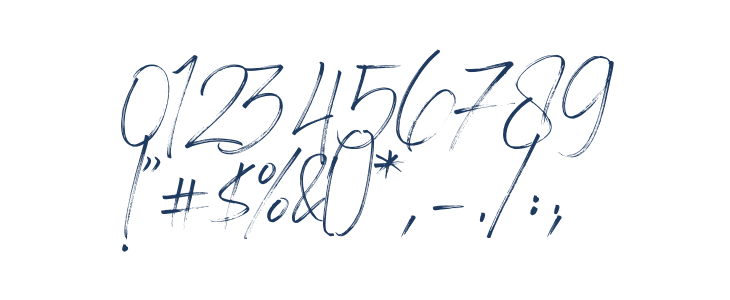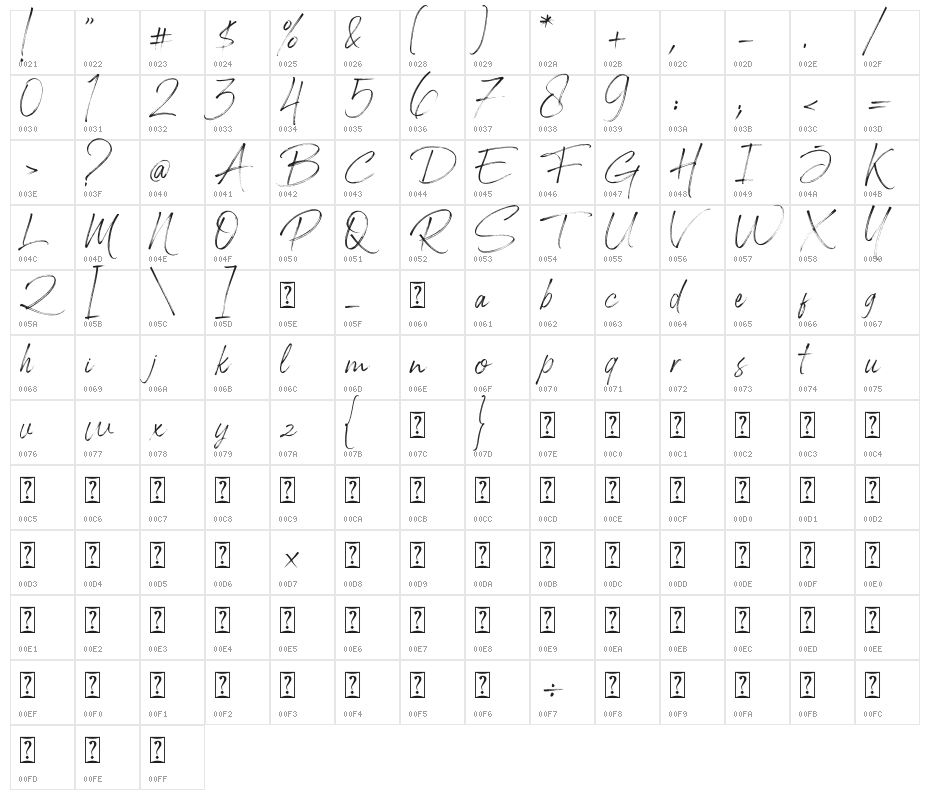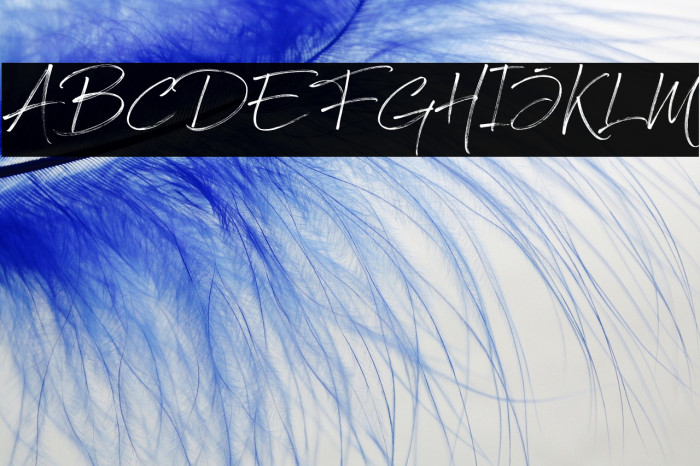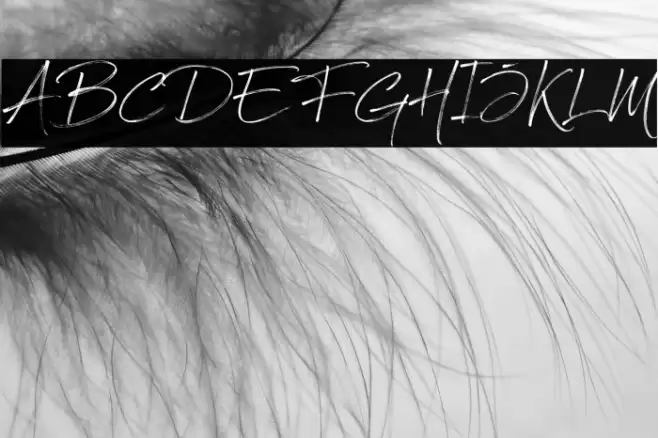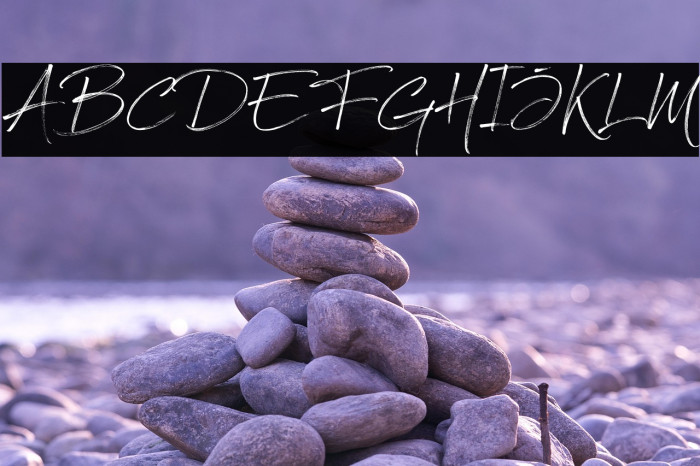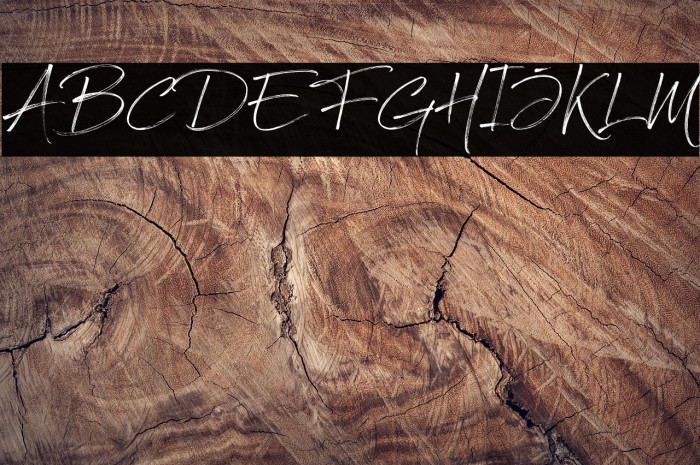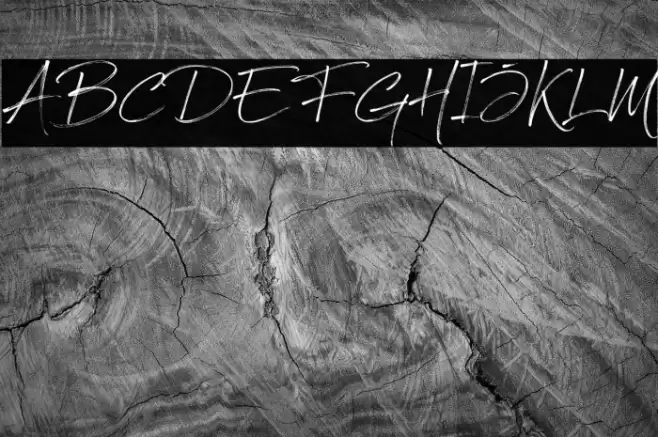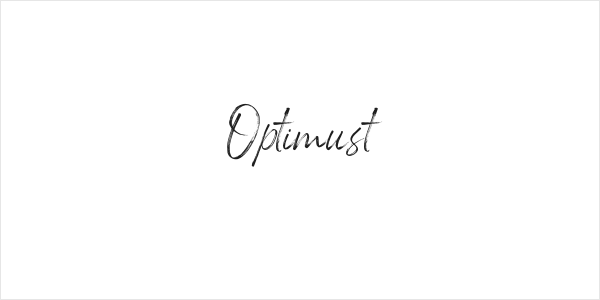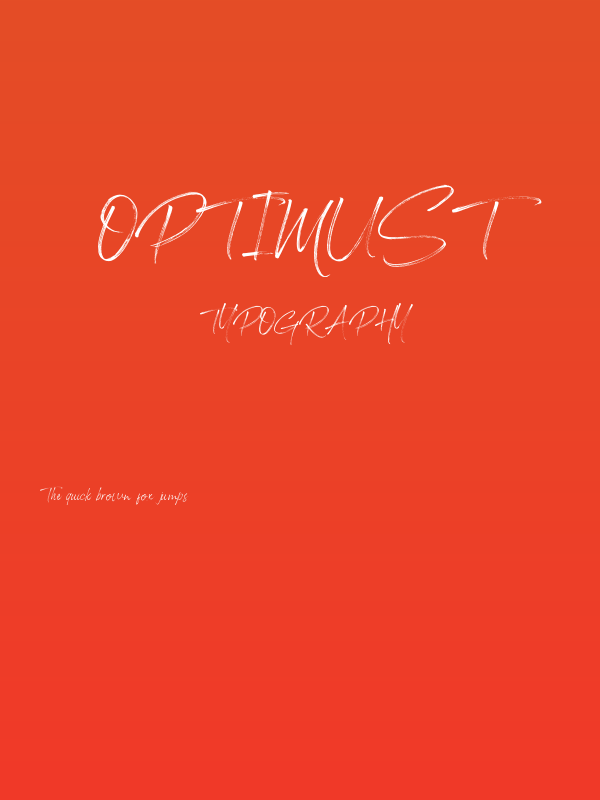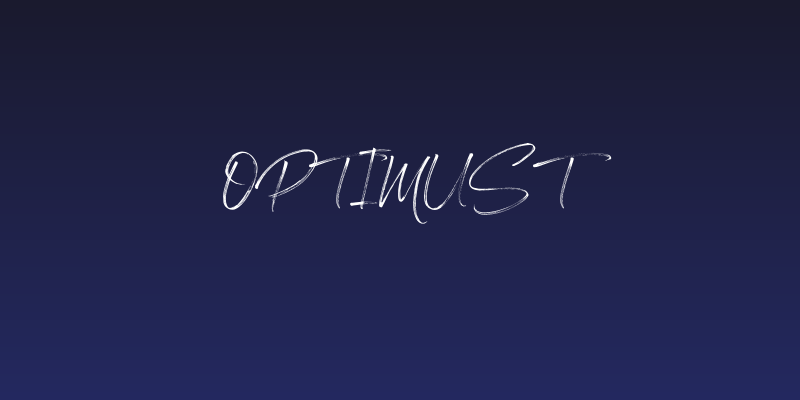
Optimust Font
Optimust Description
This font exudes a dynamic and energetic style, characterized by its fluid, handwritten appearance. The strokes are varied, with some letters featuring bold, sweeping lines while others are more delicate and refined. This creates a sense of movement and spontaneity, reminiscent of a quick, expressive script. The uppercase letters are tall and slightly slanted, adding to the font's lively feel. The lowercase letters maintain a consistent flow, enhancing readability despite the font's artistic flair. Numbers and special characters are crafted with the same attention to detail, ensuring a cohesive look across all elements.
| Use Case | Logos, Invitations, Artistic Posters |
| Proposed Projects | Ideal for creative projects such as logo design, invitations, greeting cards, and artistic posters. |